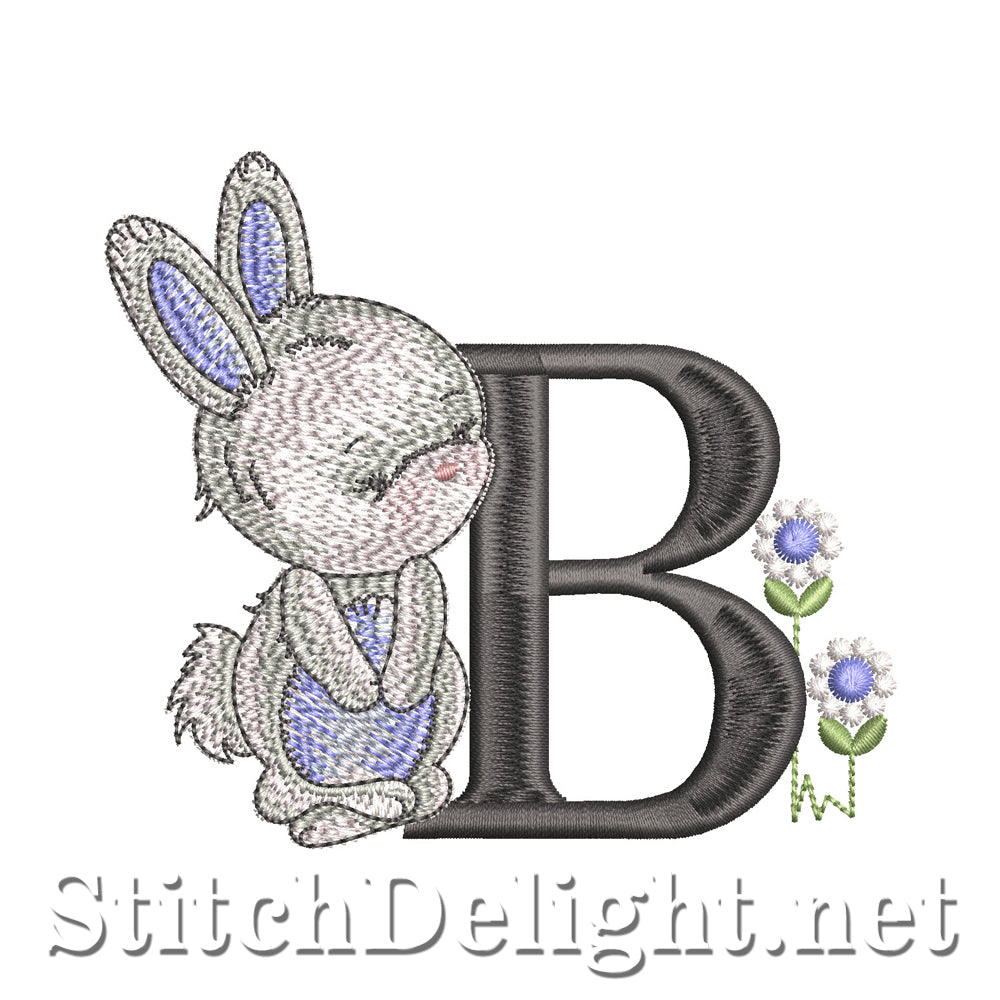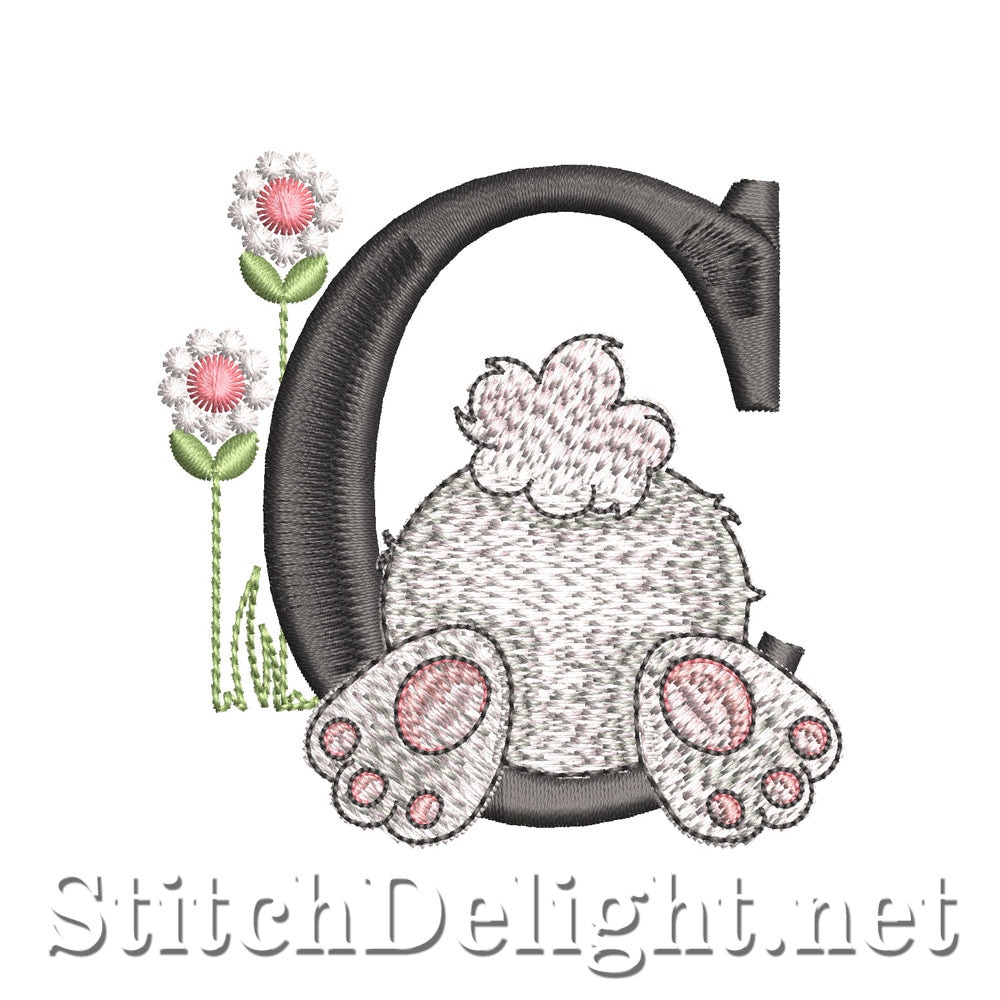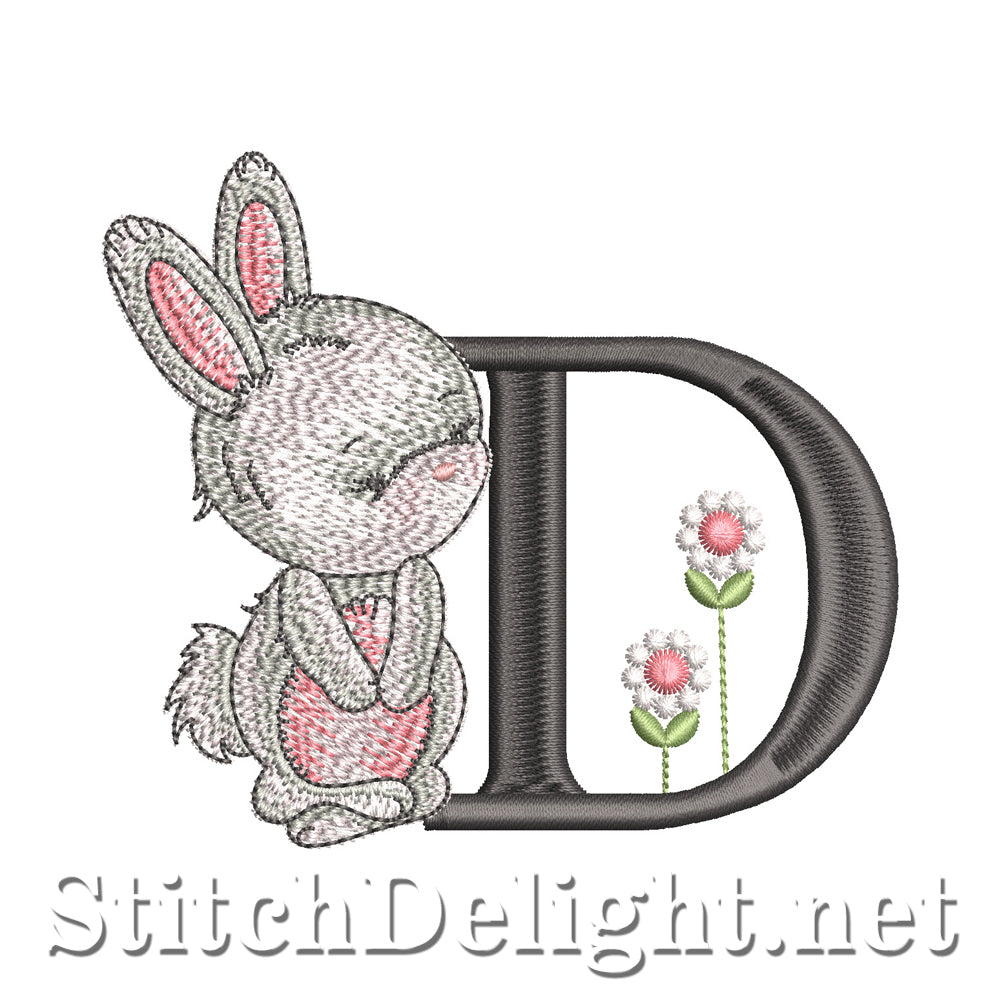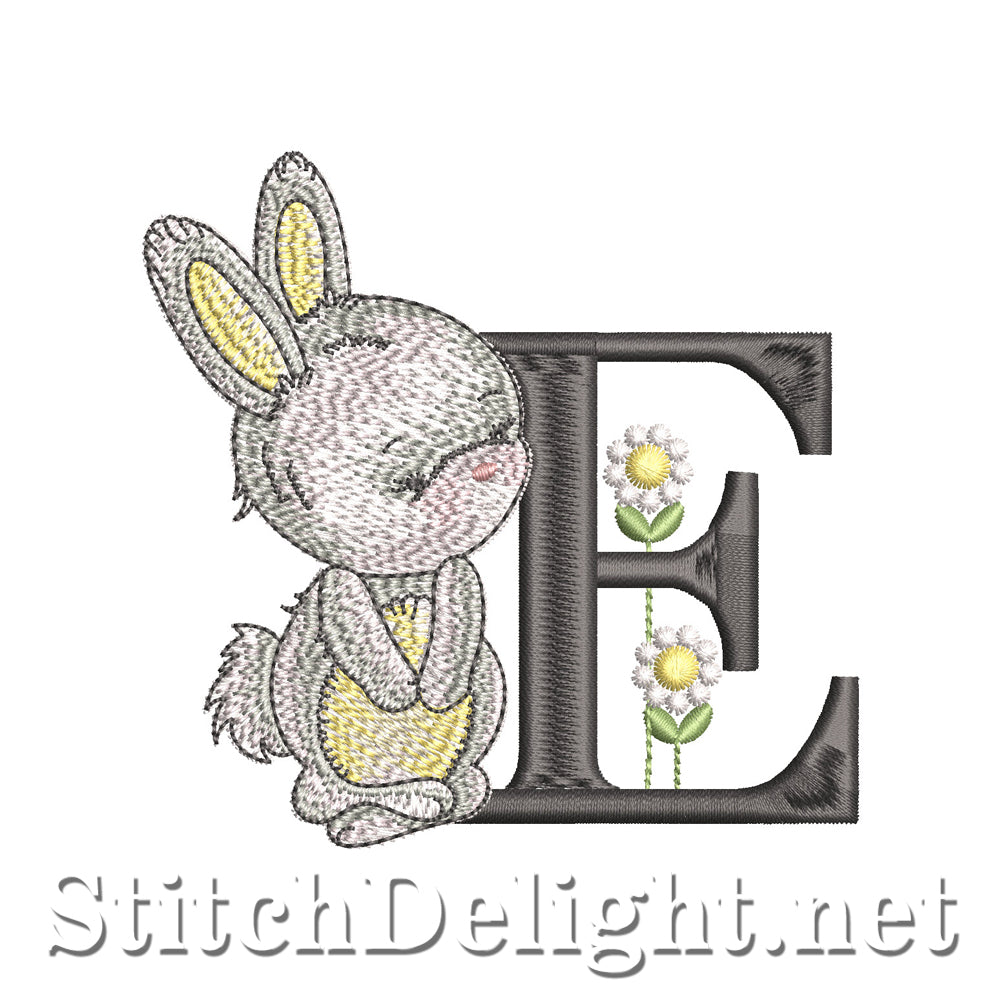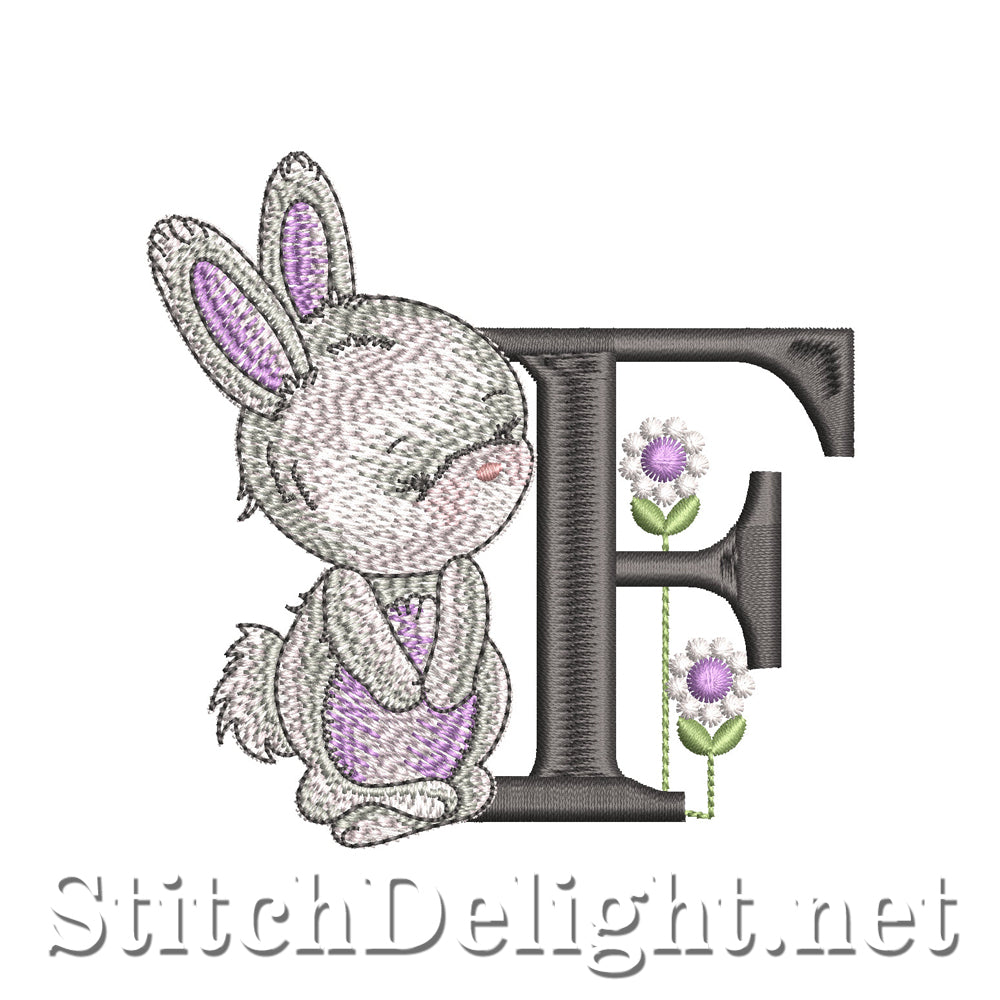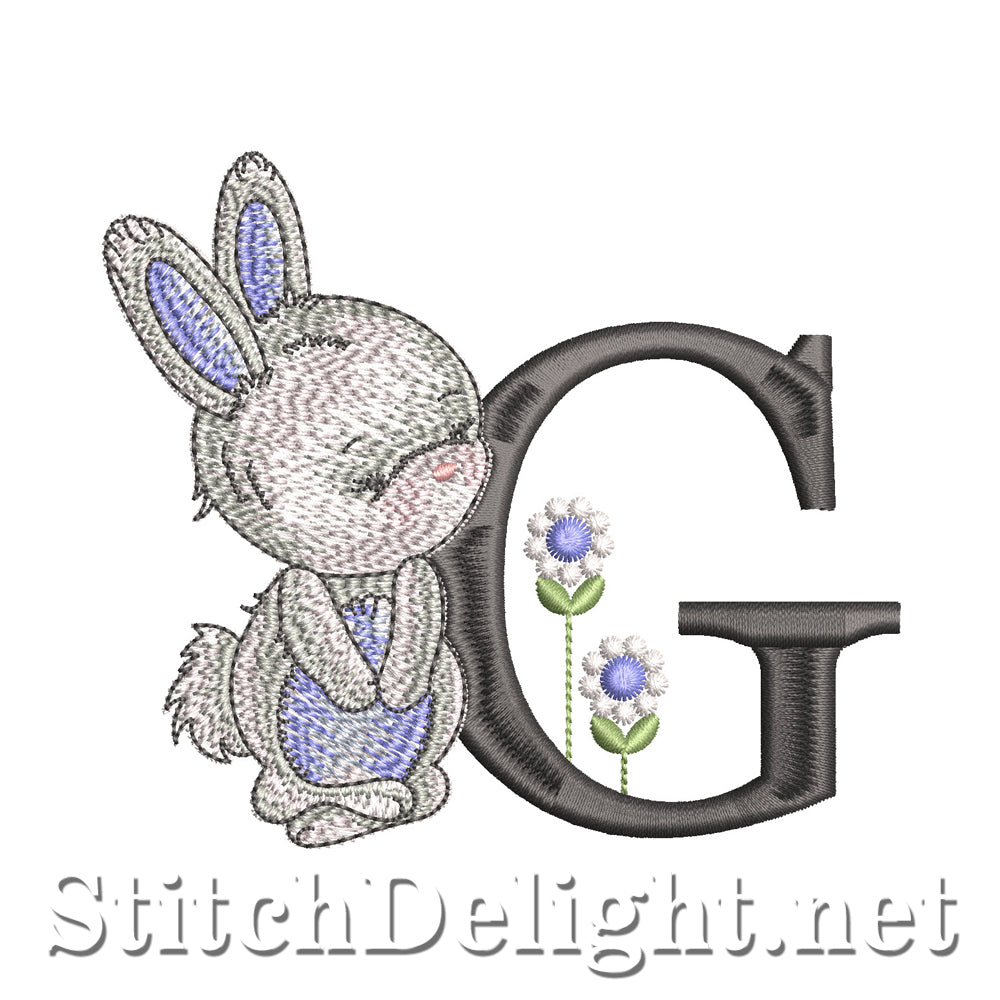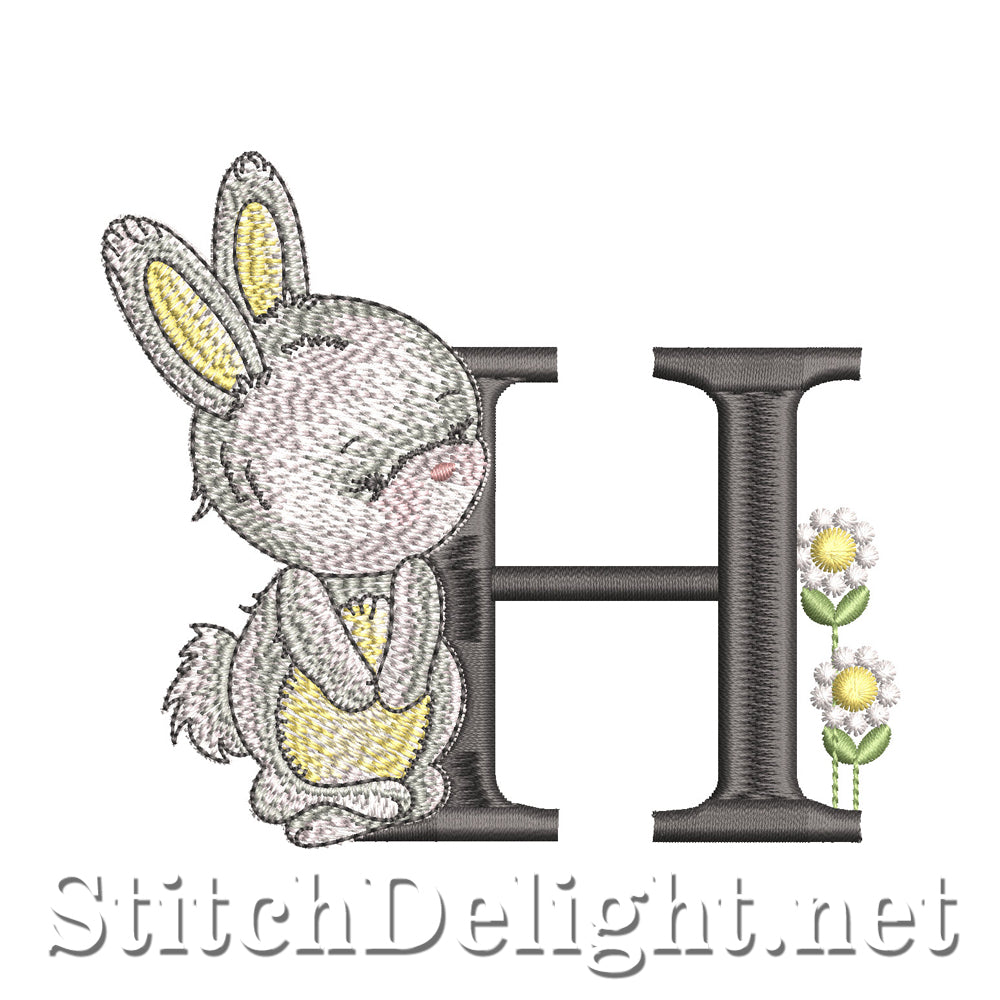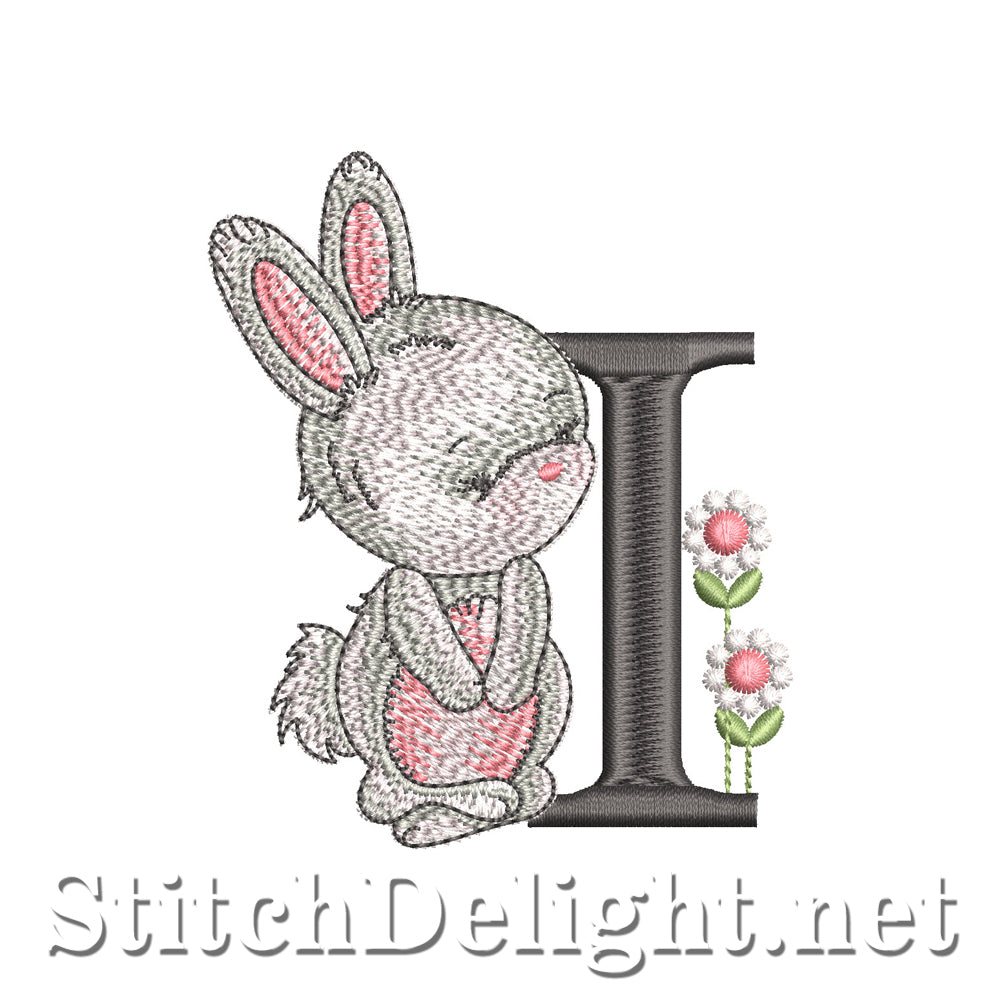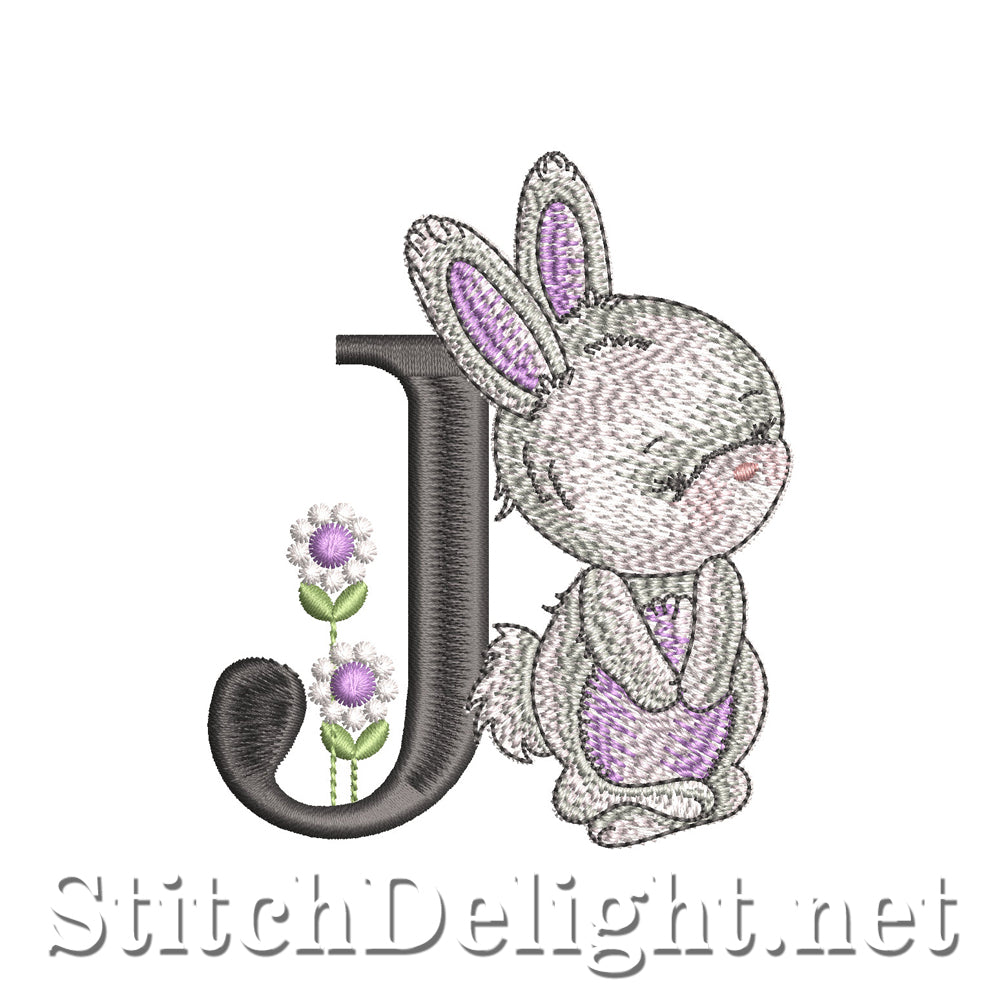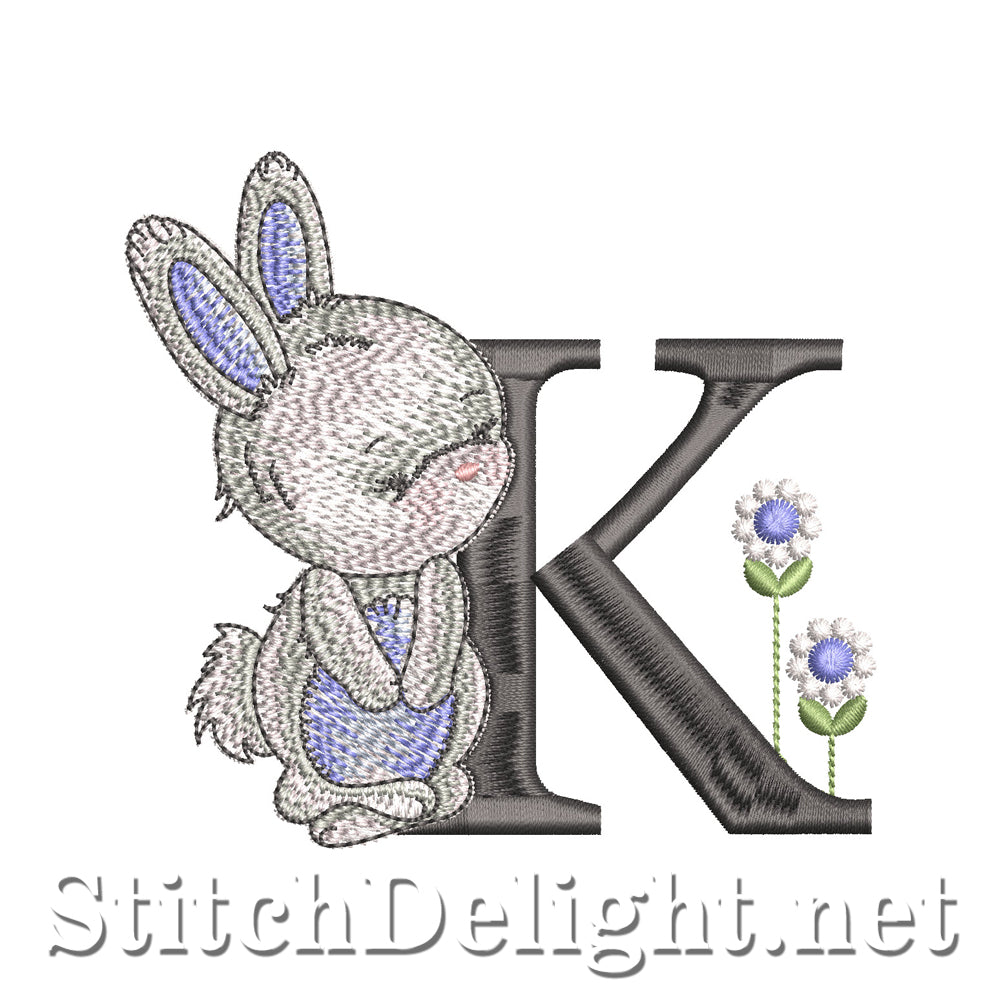
This cute Bugsy font is a collectors font. See the design sizes pdf for more info on each design's size. A min hoop size of 5x7" is required to stitch all the letters in this collection. This is a collectors font, meaning on purchase of this product you will opt in to start collecting the font one letter per day(Letters are not posted on Sundays)